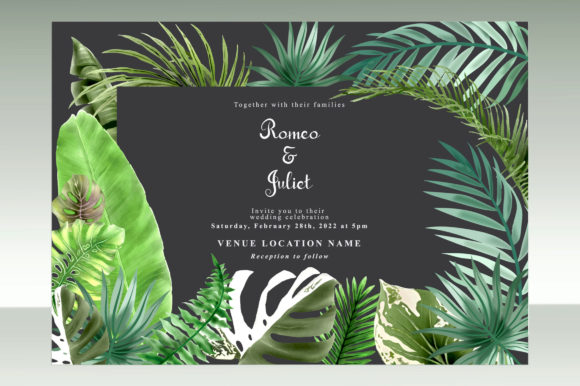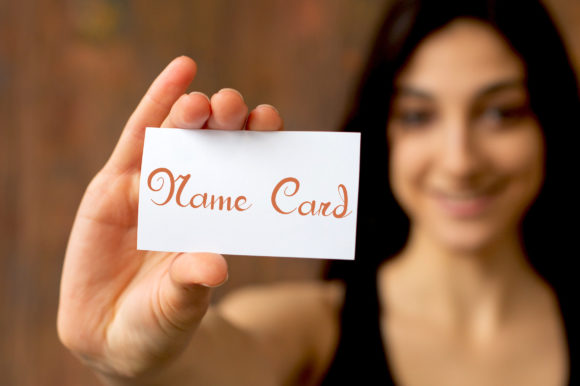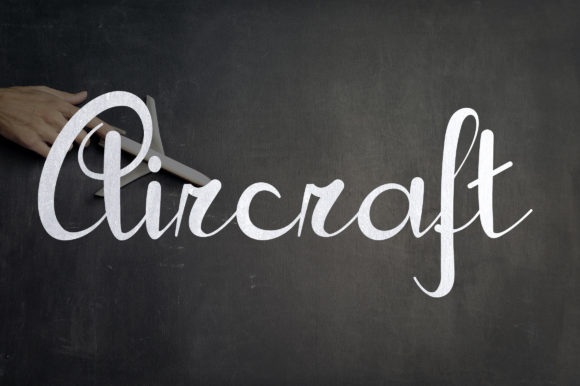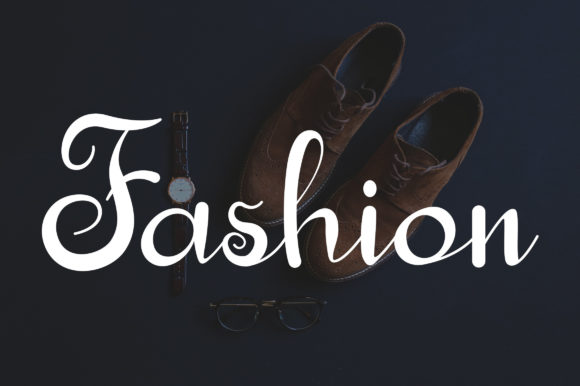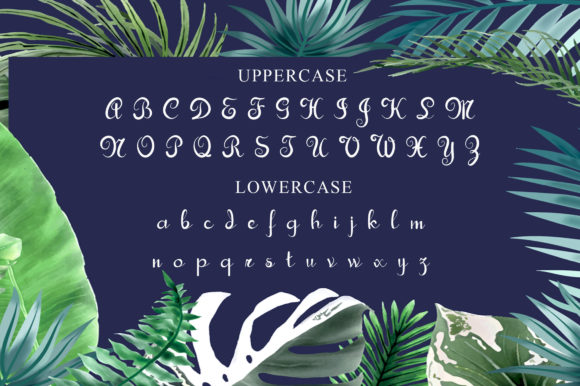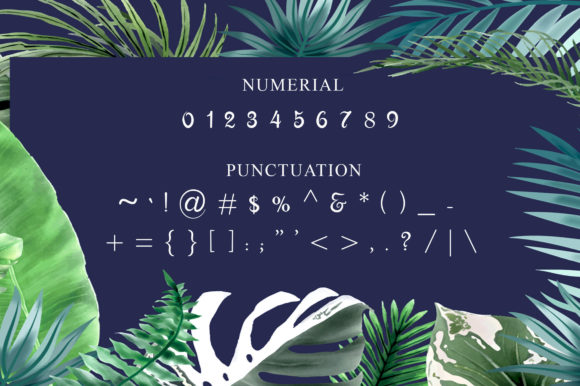
Introducing Bandiani Font: The Elegant and Dainty Handwritten Font for Crafty Ideas
Are you a designer or crafter looking for a unique and elegant font to elevate your creative projects? Look no further than Bandiani Font, a beautiful handwritten font that features sweet and delicate swashes. With its original look and versatility, Bandiani is perfect for a wide range of crafty ideas, from letterheads and titles to stationery and more.
The Characteristics of Bandiani Font
Bandiani Font is a true gem in the world of typography. Its elegant and dainty design makes it perfect for projects that require a touch of sophistication and refinement. The font features:
- Sweet and delicate swashes: The swashes in Bandiani Font are carefully crafted to add a touch of elegance and whimsy to your designs.
- Handwritten style: The font has a beautiful, handwritten look that gives it a personal and unique feel.
- Versatility: Bandiani Font is suitable for a wide range of projects, from formal letterheads to creative stationery.
Uses for Bandiani Font
Bandiani Font is a versatile font that can be used for a variety of creative projects, including:
- Letterheads and titles: Add a touch of elegance to your business letters and titles with Bandiani Font.
- Stationery: Create beautiful and unique stationery sets with Bandiani Font, perfect for personal or business use.
- Branding and packaging: Use Bandiani Font to create eye-catching branding and packaging designs that stand out from the crowd.
- Digital and print media: Bandiani Font is perfect for use in digital and print media, including social media graphics, flyers, and brochures.
Why Choose Bandiani Font?
With so many fonts available, why choose Bandiani Font? Here are just a few reasons:
- Unique and original design: Bandiani Font has a unique and original design that will set your projects apart from the crowd.
- Elegant and sophisticated: The font’s elegant and sophisticated design makes it perfect for projects that require a touch of refinement.
Tips for Using Bandiani Font
Here are a few tips for using Bandiani Font in your creative projects:
- Use it sparingly: Bandiani Font is a beautiful font, but it can be overwhelming if used too much. Use it sparingly to add a touch of elegance to your designs.
- Experiment with different colors: Bandiani Font looks great in a variety of colors, so don’t be afraid to experiment and find the perfect color for your project.
- Pair it with other fonts: Bandiani Font pairs well with other fonts, so try pairing it with a bold font for a striking contrast.
Bandiani Font is a beautiful and elegant handwritten font that is perfect for crafty ideas and creative projects. With its sweet and delicate swashes, elegant design, and versatility, Bandiani Font is a great choice for designers and crafters looking for a unique and sophisticated font. Whether you’re creating letterheads, titles, stationery, or branding and packaging designs, Bandiani Font is sure to impress.